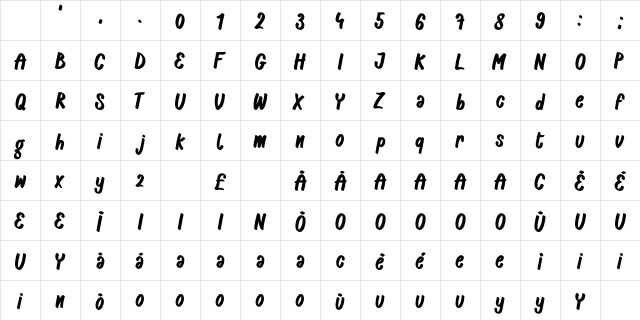
Complete Casper Marker DaFont Regular glyph index. Displaying only characters natively supported by Casper Marker DaFont Regular font.
Casper Marker DaFont is a composed and adaptable typeface that performs quietly and consistently across a wide range of design contexts.